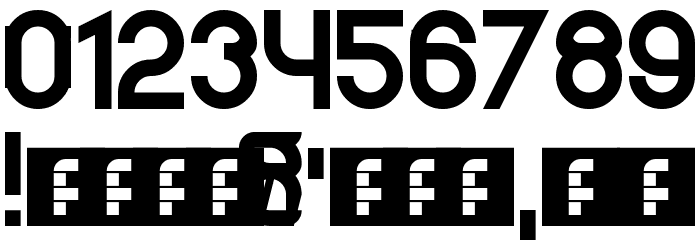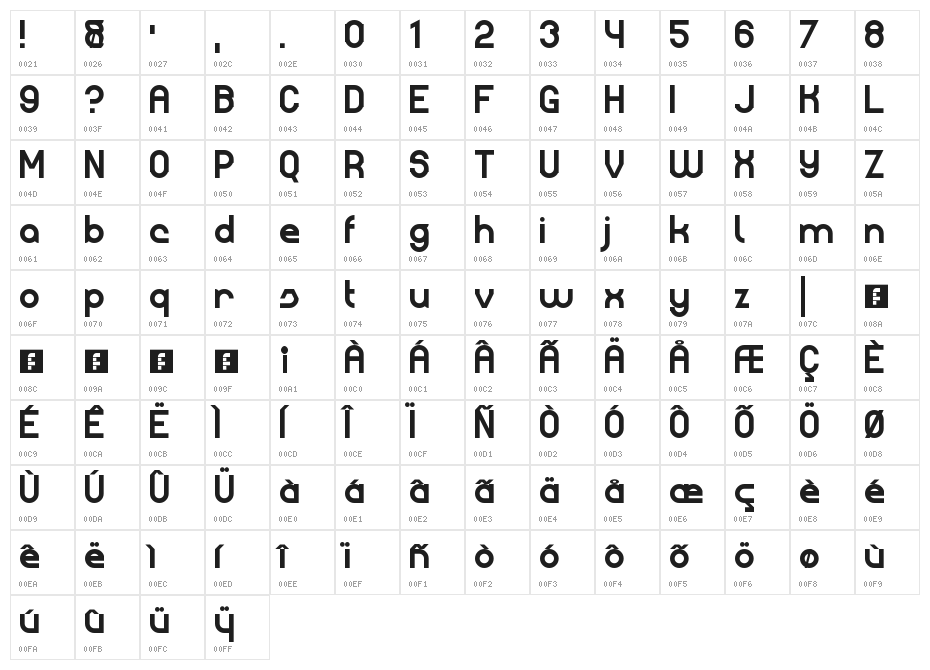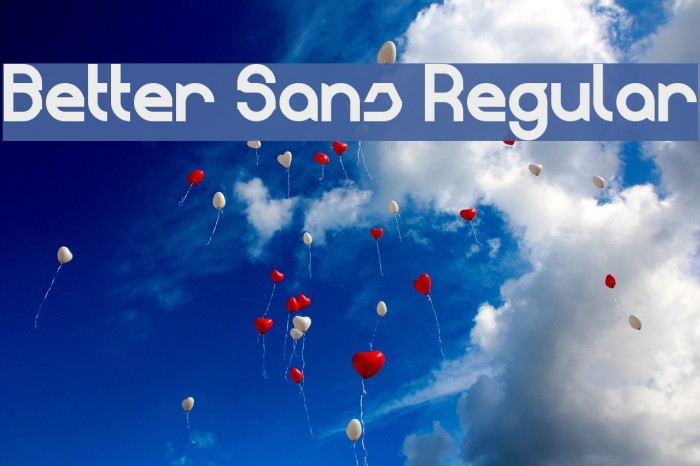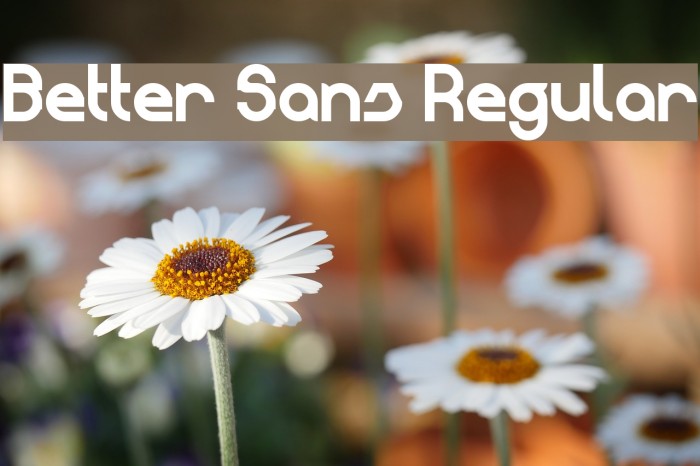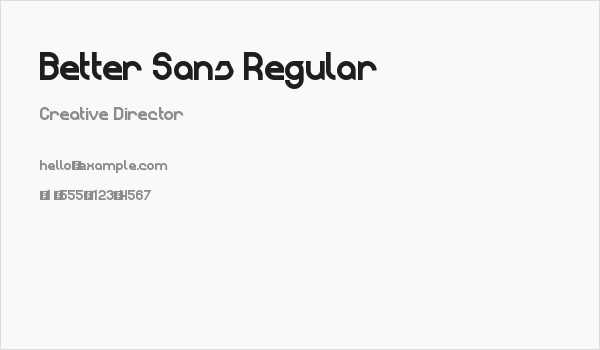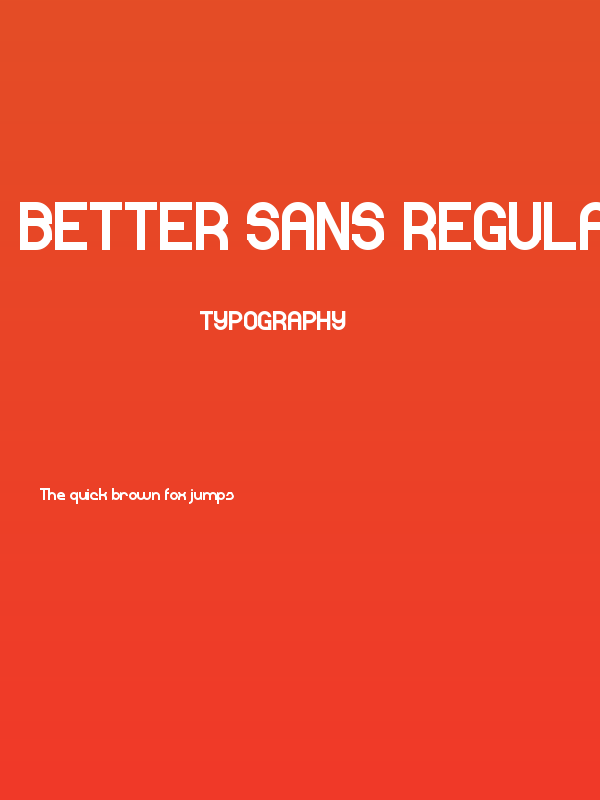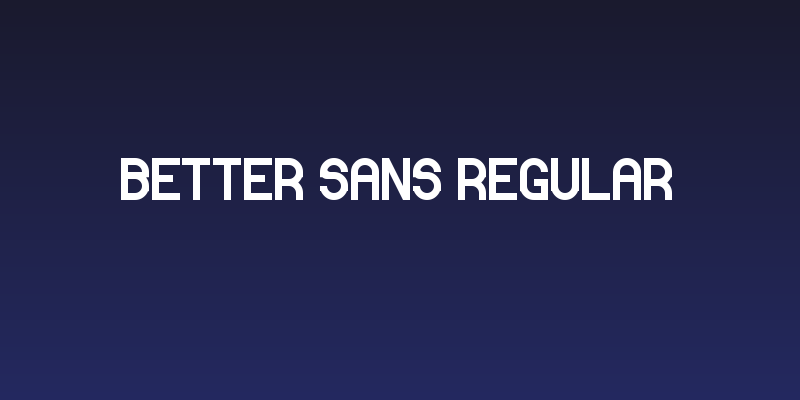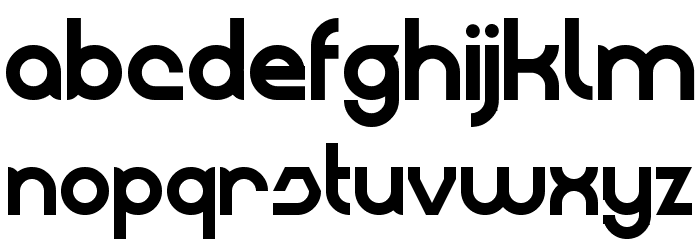
Better Sans Regular Font
Better Sans Regular Description
This font features a clean and modern sans-serif design with a geometric structure. The uppercase letters are bold and uniform, providing a strong presence, while the lowercase letters maintain a consistent style with rounded edges that soften the overall look. The numerals are clear and easy to read, matching the boldness of the uppercase letters. Special characters are distinct and well-integrated into the font's style. The overall appearance is contemporary and versatile, making it suitable for a variety of design applications.